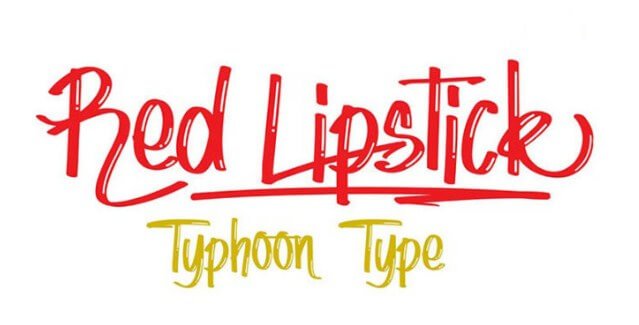
Lipstick Font is the fancy serif typeface which is used for posters, t-shirts, and flyers designs.
Lipstick Font Family
Lipstick font is excellent used as a heading or inside the title healing, as the swashes could also be elaborate to read at smaller sizes. Pair Backsword with a balanced sans serif.